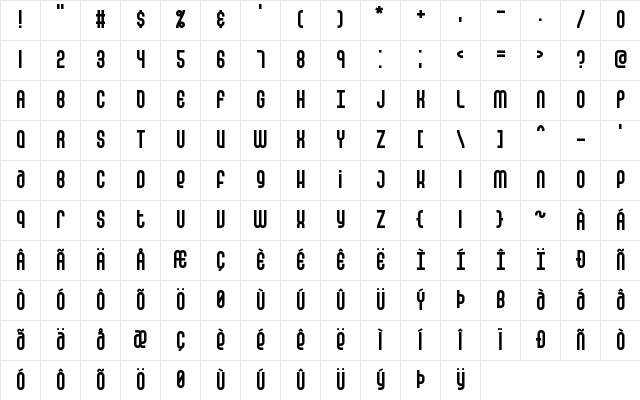
False Positive BRK Normal
Designer: ￿IGMA FONTS - Brian Kent
False Positive BRK Family
Design Context for False Positive BRK
False Positive BRK is a composed and adaptable typeface that performs quietly and consistently across a wide range of design contexts.